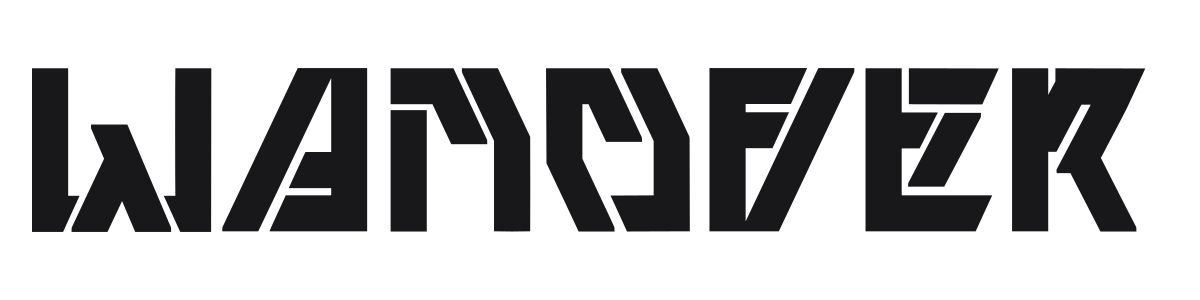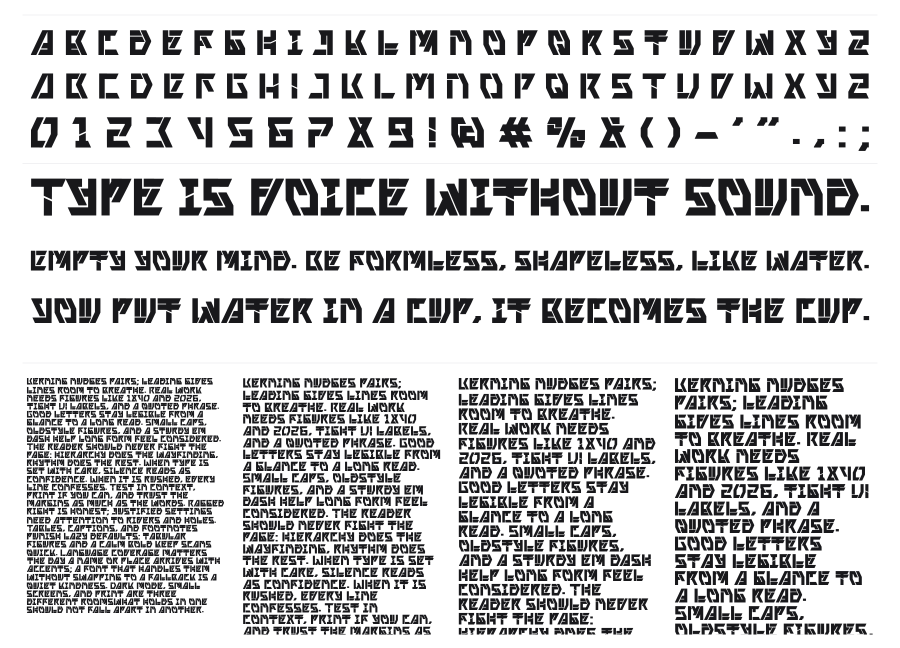
Wanover
Wanover is a heavy geometric stencil face built from bold rectangular modules sliced through with sharp diagonal cuts. The fragmented forms give every character a fractured, high-tension energy that reads instantly at large sizes. Strong territory for posters, album art, gaming titles, and streetwear branding.